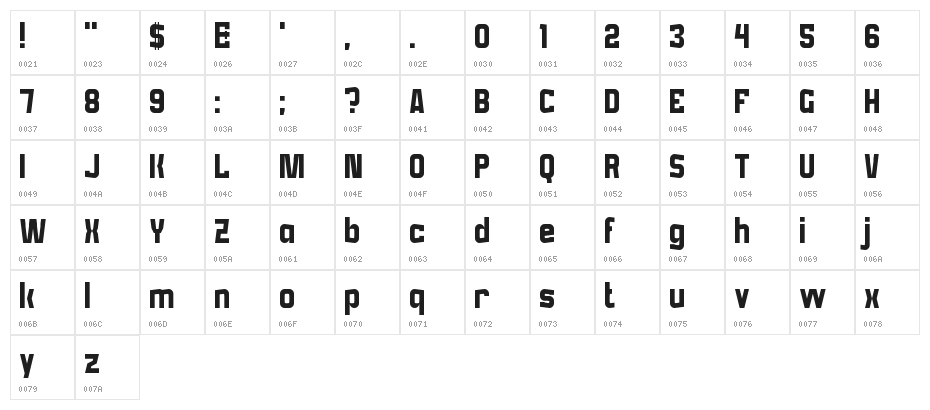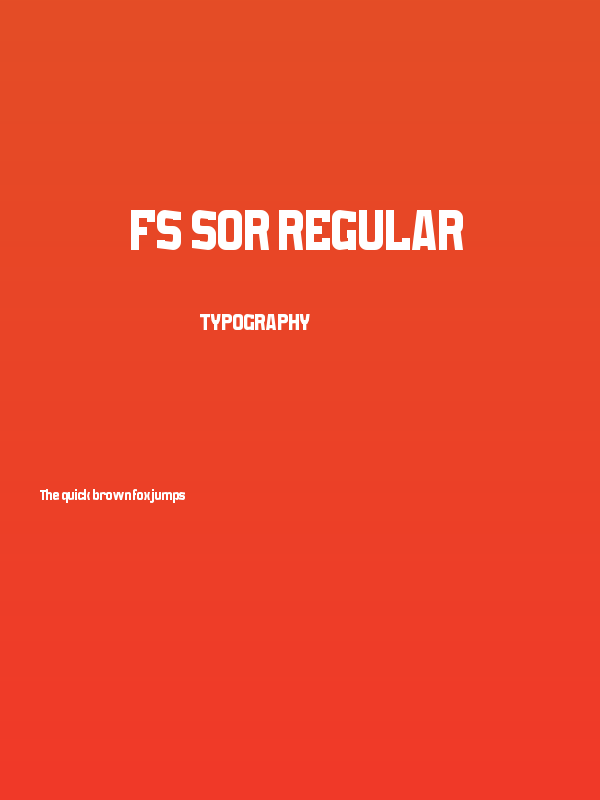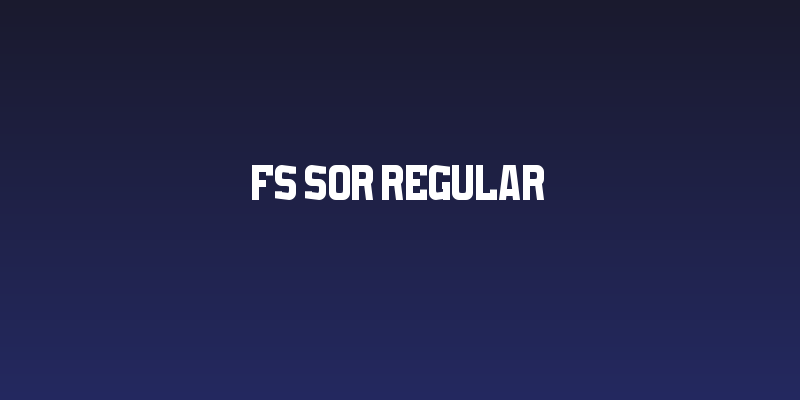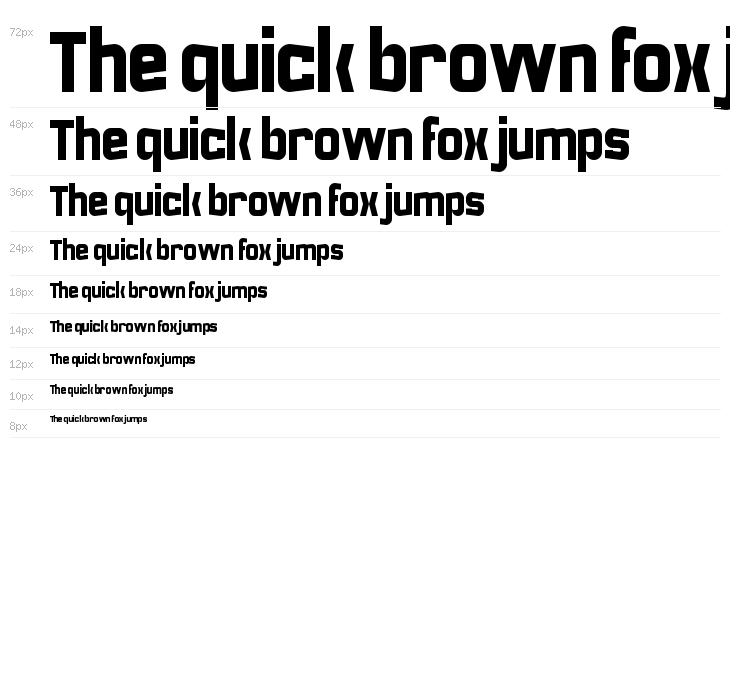
fs sor Regular Font
fs sor Regular Description
This font features a bold, geometric style with strong, angular lines and a modern aesthetic. The uppercase letters are particularly striking, with a uniform height and width that create a cohesive look. The lowercase letters maintain the same boldness, with slightly rounded edges that add a touch of softness to the overall design. The numerals are consistent with the letterforms, offering a clear and legible appearance. Special characters are designed to match the bold and modern style, ensuring they integrate seamlessly with the rest of the font. This typeface is ideal for making a strong visual impact.